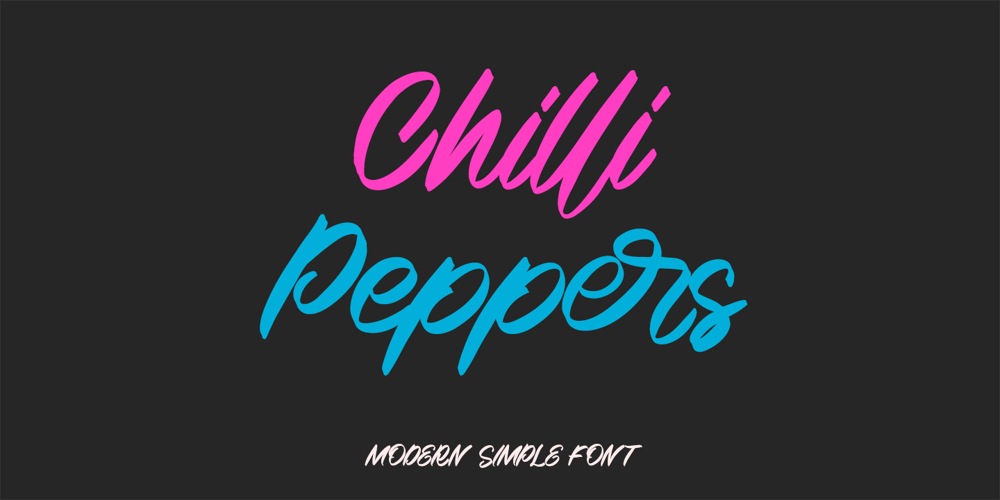
Chilli Peppers Font Family was designed by Thomas Aradea and published by Letterara. Chilli Peppers contains 2 styles and family package options. Chilli Peppers is a stylish, quirky, and incredibly distinct script font. Its stand-out feel makes this font incredibly versatile, fitting a wide range of contexts. Whether you’re using it for crafting, digital designing, presentations, poster, logos, events, or greeting card making, it’s perfect! This font is PUA encoded which means you can access all of the awesome glyphs with ease! It also features a wealth of special features including ligatures.